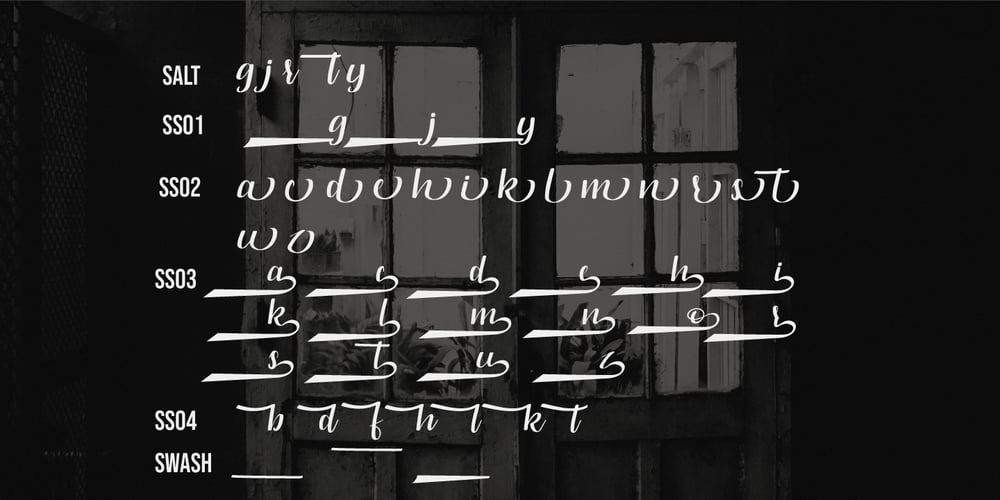
Rubinetto
Rubinetto font
Rubinetto Font Family was designed by Vava Aryanto and published by FallenGraphic. Rubinetto contains 1 styles and family package options. Say Hello to Rubinetto Script Font! Rubinetto is an modern handwritten script font. Very easy to access alternate . which is perfect for flyer, invitations, advertisements, banners, books, business cards, signatures, and others who want a bold script font font type. What’s Included ? -Rubinetto Font.OTF The Features of this fonts is : -Standart ligatures -Stylistic Alternate -Stylistic Set SS01-SS04 -Swash -Multilingual Support If you want something please contact me to : vavaaryanto666@gmail.com